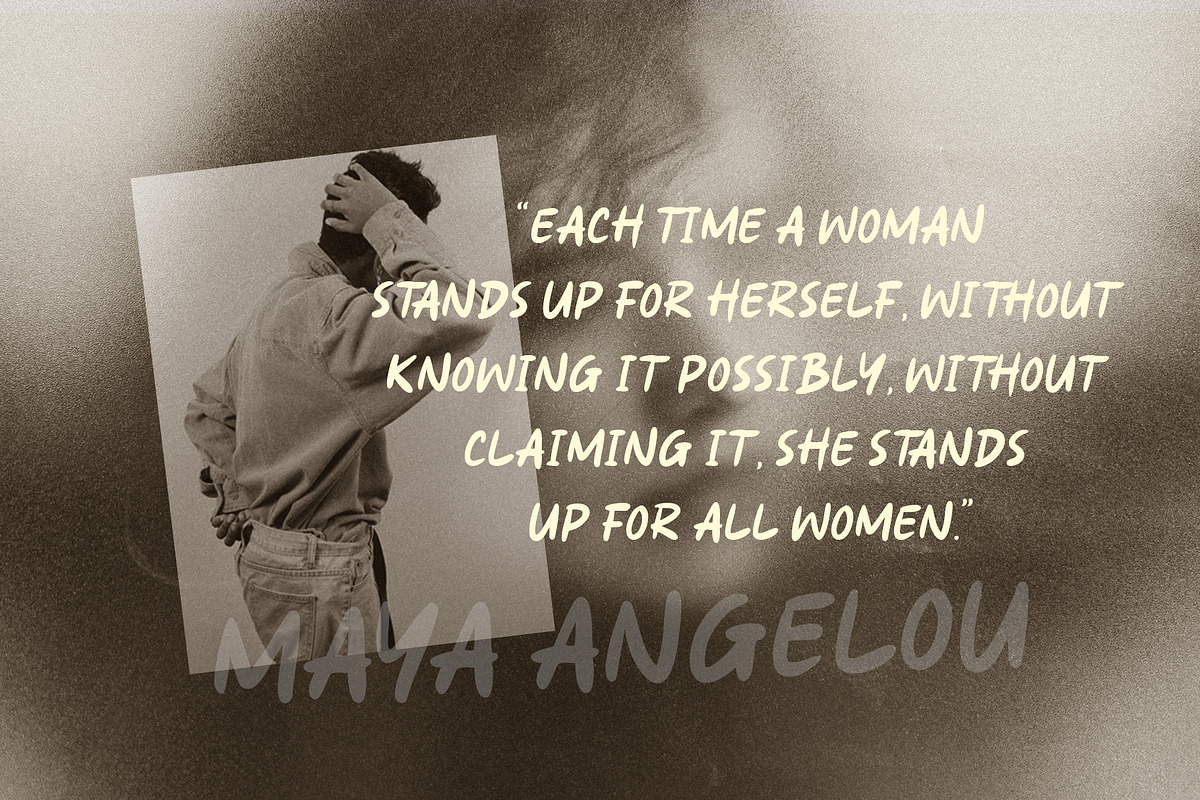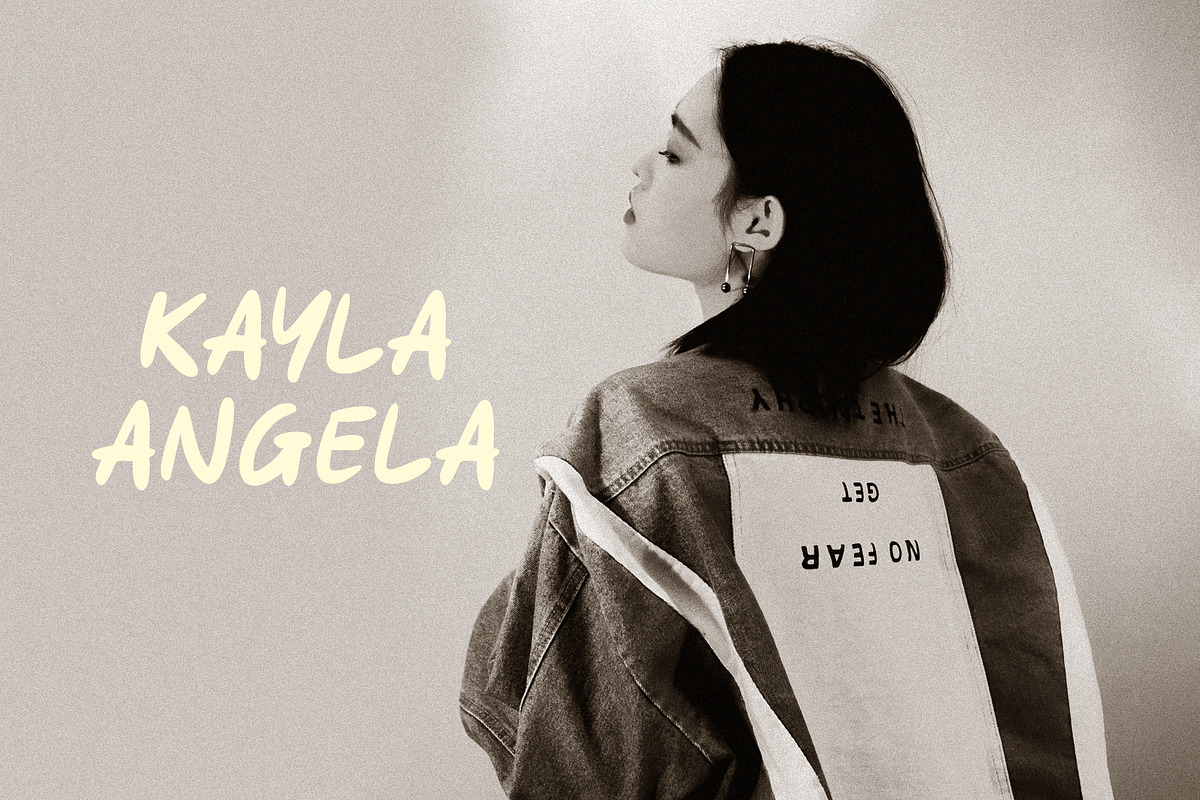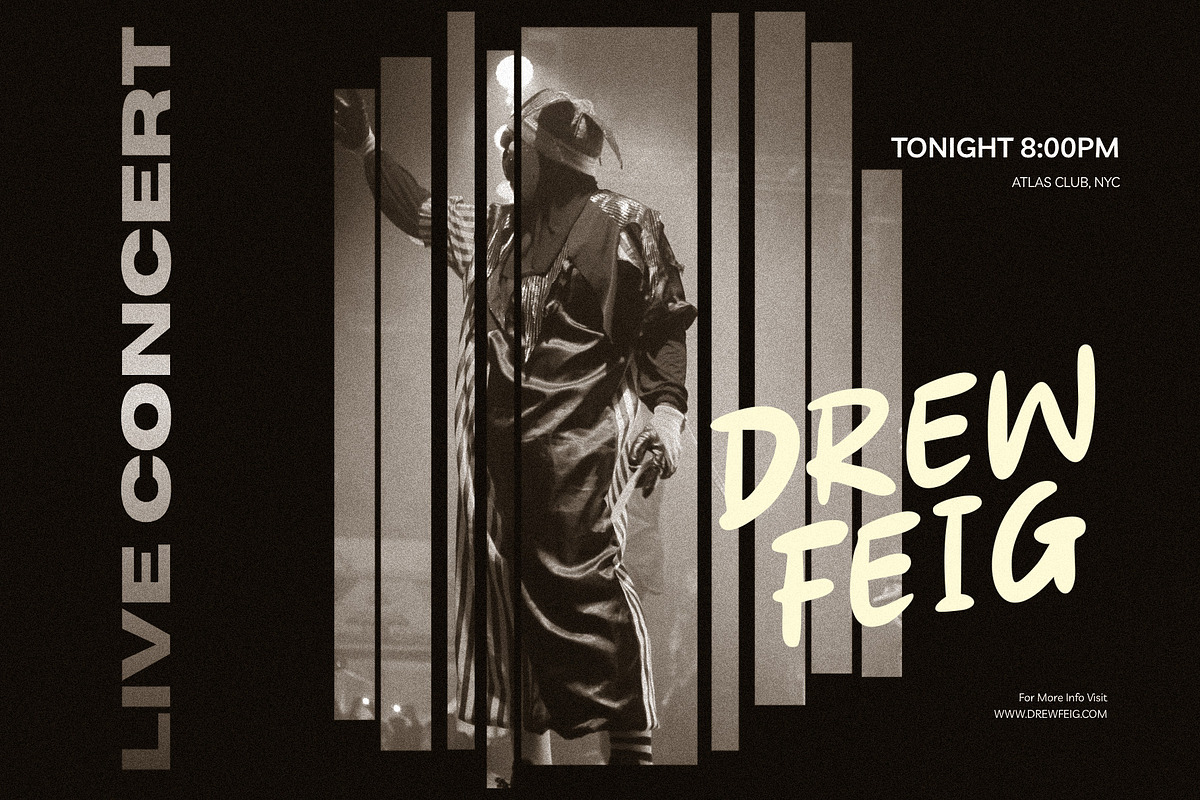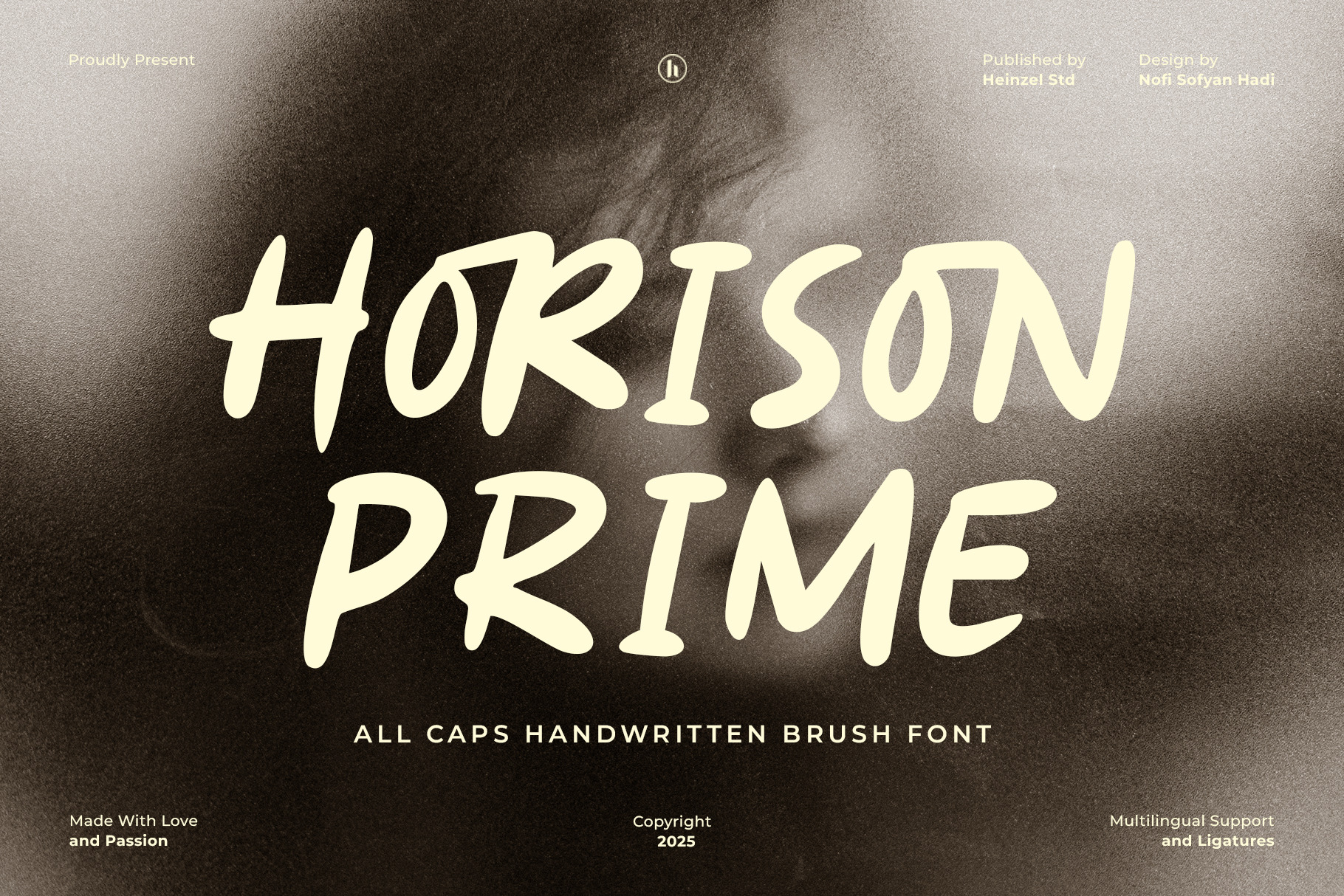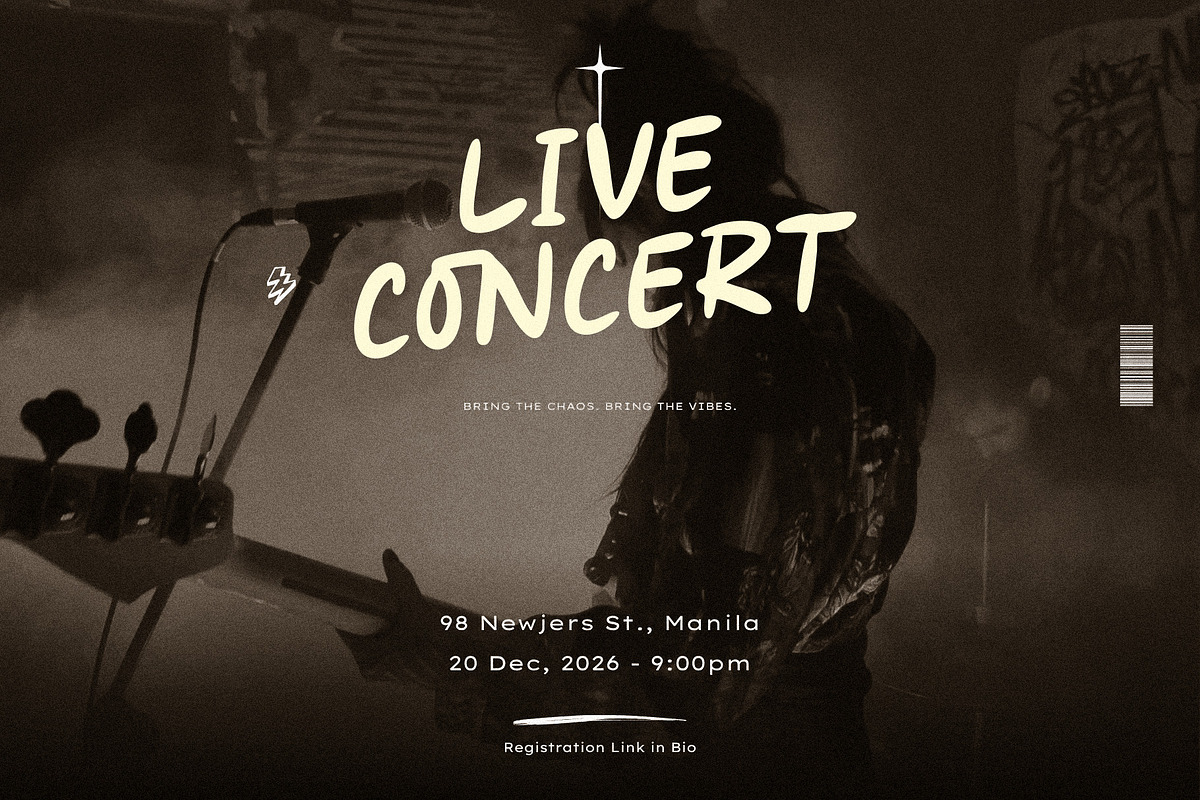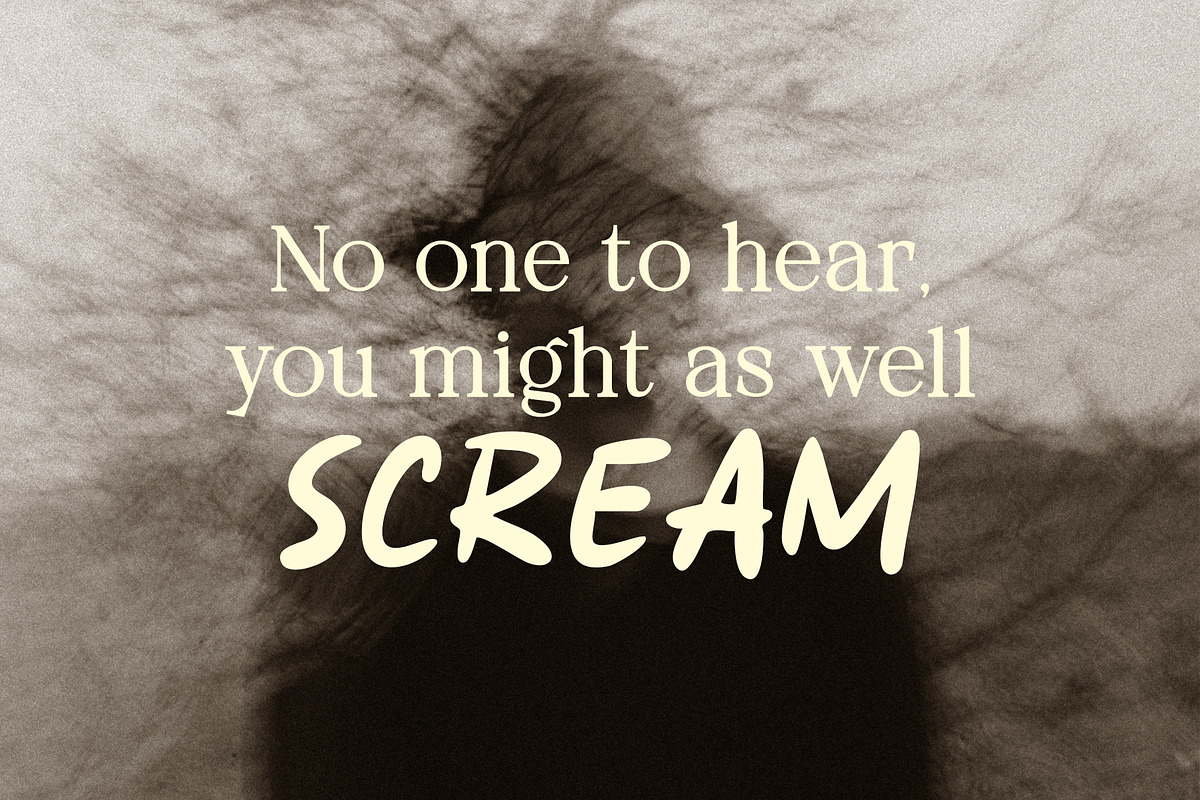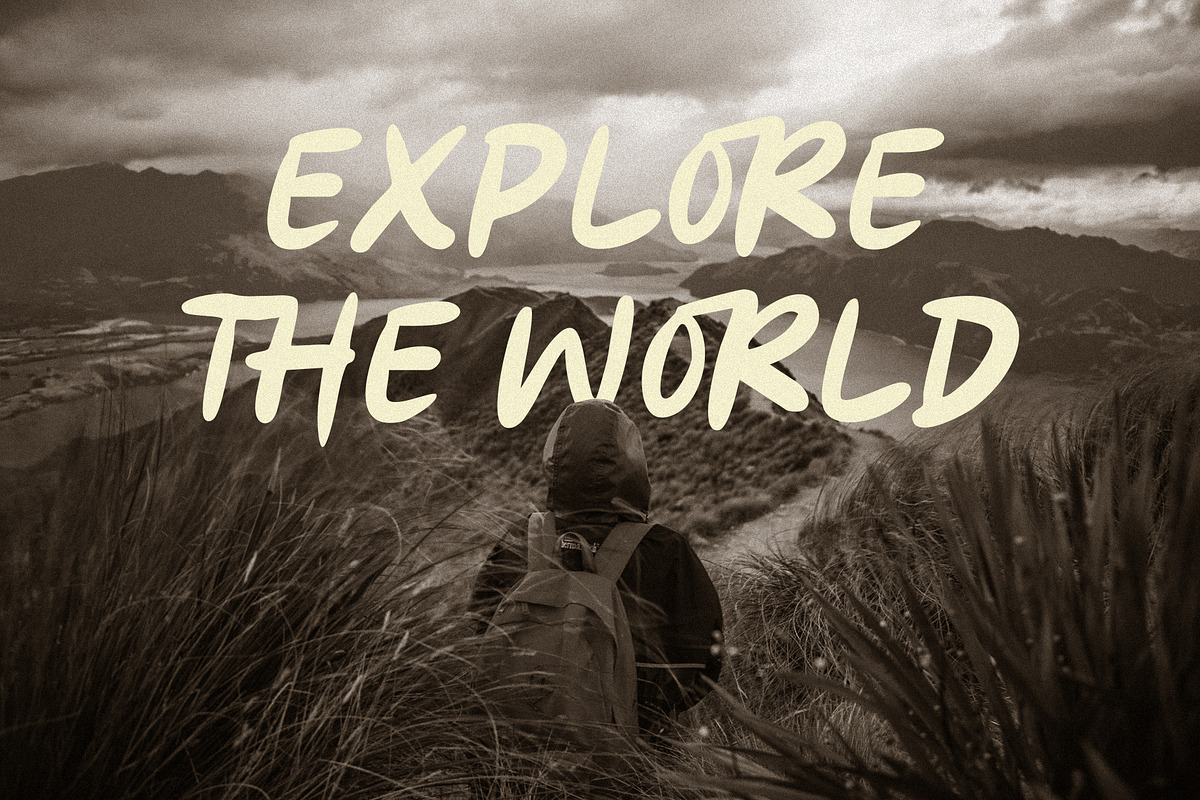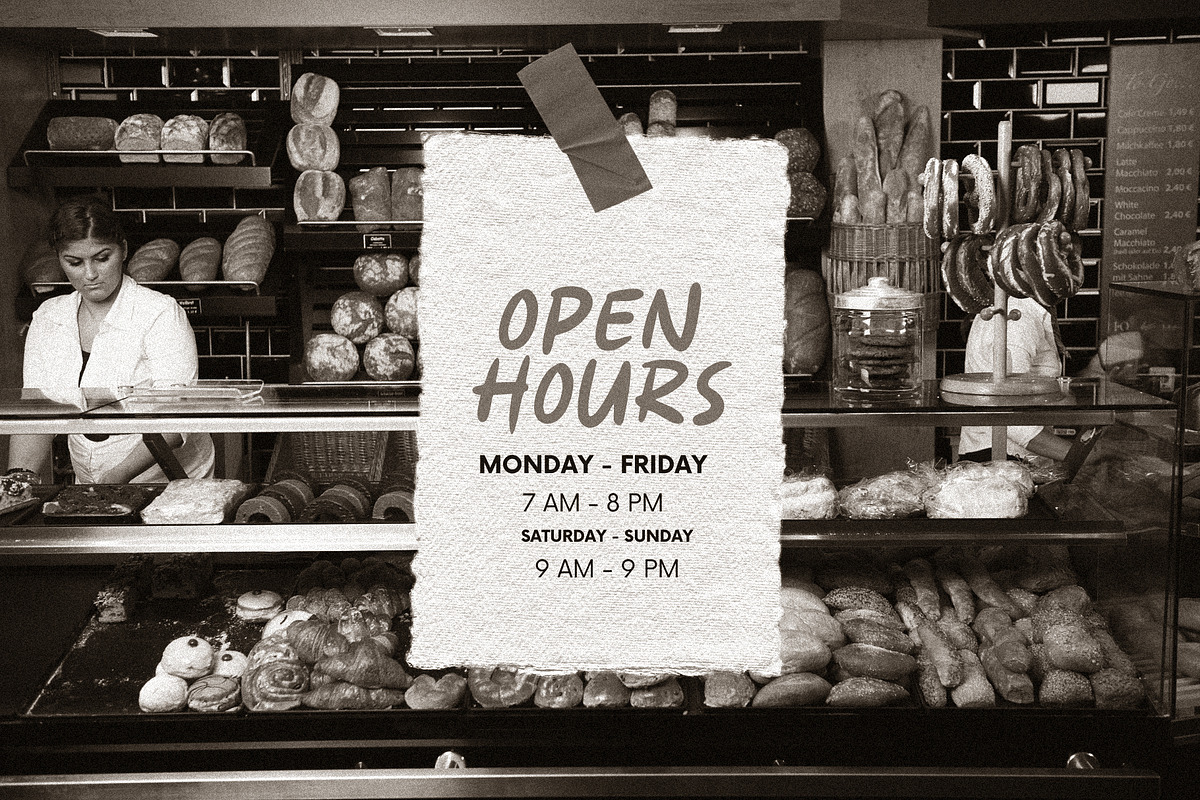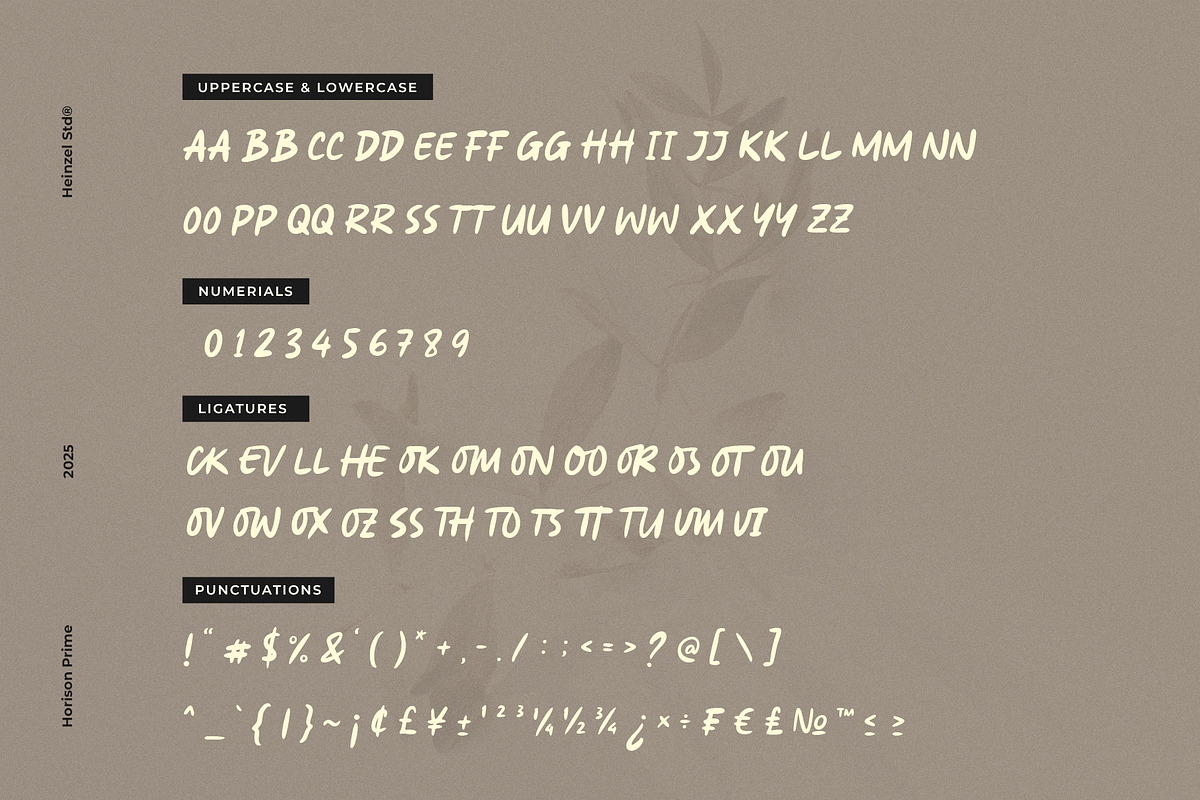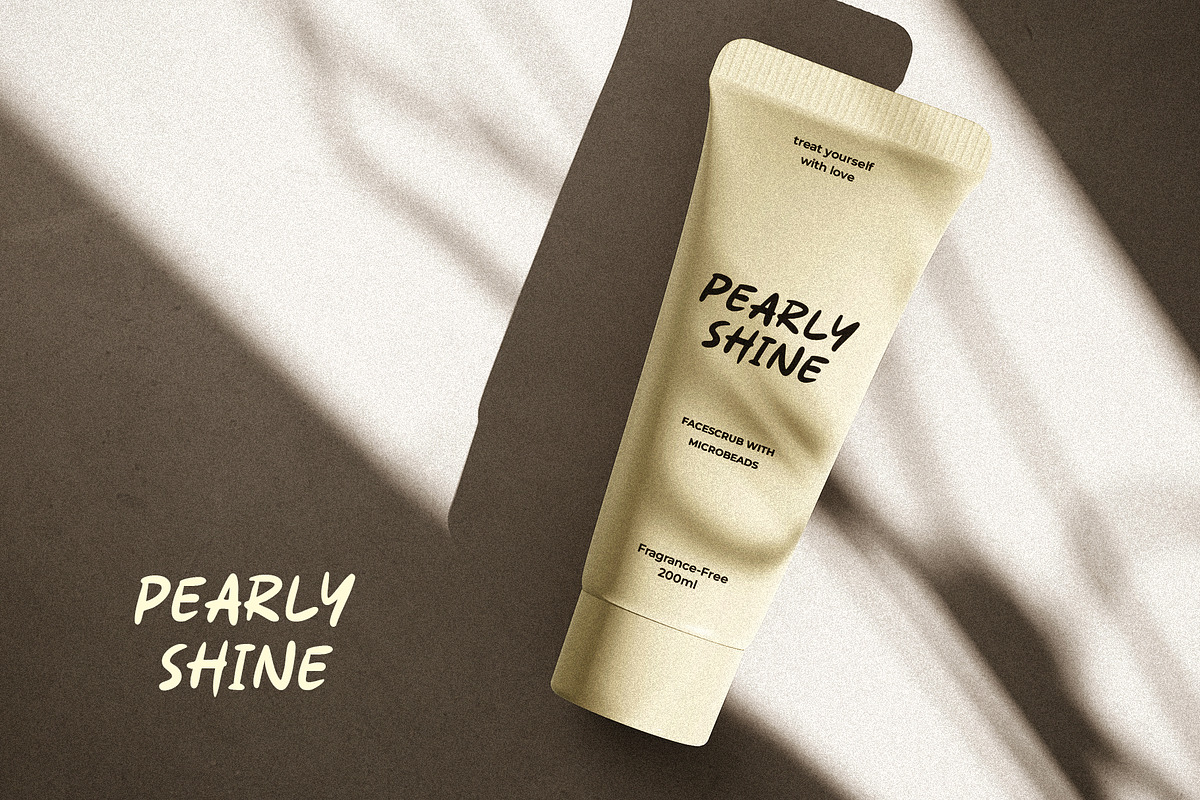
Horison Prime Handwritten Brush Font
Horison Prime is a bold and expressive all-caps handwritten brush font designed to bring a raw, energetic, and artistic personality to your creative projects. Its organic strokes, imperfect edges, and dynamic letterforms create an authentic hand-painted feel while maintaining a strong and eye-catching appearance.
Perfect for designers looking to add a bold handmade aesthetic to branding, posters, apparel, album covers, packaging, social media graphics, headlines, and creative advertising. Horison Prime works especially well when you want typography that feels confident, youthful, spontaneous, and full of character.
With multilingual support and ligatures, Horison Prime offers added versatility for both personal and professional design projects. Its distinctive brush style makes it a great choice for projects that need a strong visual identity and a contemporary handmade touch.